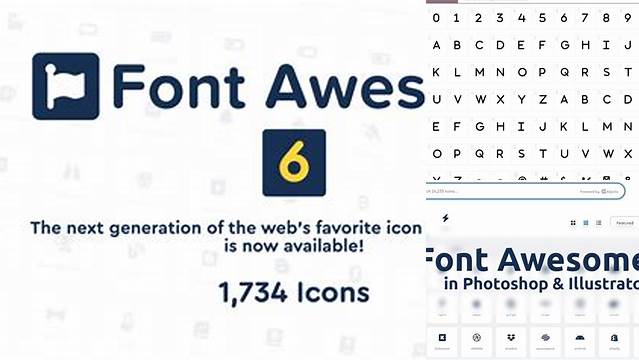
Welcome, guys! If you're looking to supercharge your web projects with awesome icons, you've landed in the right spot. We're diving deep into Font Awesome 6 free download, the latest and greatest from the world of icon libraries. Whether you're a seasoned developer or just starting out, understanding how to get and use these powerful tools is crucial for making your websites and apps look sharp and professional. So, let's get started on this journey to unlock the full potential of Font Awesome 6 for your design needs without spending a dime!
Understanding Font Awesome 6 Free Version
The free version of Font Awesome 6 is a powerhouse, offering a vast collection of icons that are perfect for a wide range of applications. It’s designed to be accessible to everyone, from individual bloggers to small businesses, ensuring that professional-looking design elements are within reach. When you opt for the free download, you're not getting a watered-down experience; you're getting a robust set of tools that can significantly enhance the user interface and overall aesthetic of your digital presence. The free tier includes hundreds of meticulously crafted icons, covering everything from social media platforms and navigation elements to essential UI components and business symbols. These icons are scalable, meaning they look crisp and clear on any screen size, from tiny mobile devices to large desktop monitors, thanks to their vector-based nature. The sheer variety available means you're likely to find the perfect icon for almost any purpose, reducing the need to source icons from multiple places or resort to custom designs. This accessibility and breadth of choice are what make the free version of Font Awesome 6 an invaluable asset for designers and developers alike. Furthermore, the icons are designed with a consistent style, ensuring that your website maintains a cohesive and professional look, even when using a diverse set of symbols. The ease of integration is another major plus; getting these icons into your project is straightforward, typically involving a simple link to the stylesheet or downloading the icon files directly. This means less time spent on setup and more time focusing on what truly matters: building a great user experience.
Why Font Awesome 6 is a Game Changer for Web Design
Font Awesome 6 is more than just an icon library; it's a fundamental tool that can dramatically elevate your web design game. For starters, the sheer volume of icons available in version 6 is astounding, offering designers and developers an unprecedented level of choice. This means fewer compromises and more opportunities to find that perfect visual element to communicate your message or guide your users. The consistency in design across the entire library is another huge win. Whether you're using a simple checkmark or a complex gear icon, they all share a common aesthetic language, which is vital for creating a cohesive and professional user interface. Imagine trying to build a site with icons from a dozen different sources – it would look messy, right? Font Awesome 6 solves that problem elegantly. Plus, they've introduced new styles and categories in version 6, catering to modern design trends and expanding the library's versatility even further. Think about accessibility: these icons are incredibly easy to implement, often requiring just a simple HTML tag. This ease of use translates to faster development times and a smoother workflow, which is music to any developer's ears. The scalability of these vector-based icons is also a major benefit. They look fantastic on high-resolution displays and scale up or down without losing quality, ensuring your site looks great on any device, from smartphones to large monitors. This attention to detail and commitment to providing a comprehensive, high-quality, and user-friendly icon solution is what truly makes Font Awesome 6 a game-changer in the web design landscape. It empowers you to create visually engaging and intuitive interfaces that captivate your audience.
Using Font Awesome Icons in Your HTML
Alright guys, you’ve got Font Awesome 6 linked up via CDN or downloaded, now let’s talk about actually using those snazzy icons in your HTML. It’s honestly one of the simplest parts of the process, which is great news for quick project development! The magic happens with simple HTML tags, usually either an <i> (italic) tag or sometimes a <span> tag. You'll give this tag a specific set of classes. The primary class you need is fa followed by the icon's style, like fa-solid for solid icons or fa-regular for regular/outline icons (both are available in the free version). Then, you add another class that defines the specific icon you want to display. For instance, if you want a search icon, you’d use fa-magnifying-glass. So, a typical icon tag would look like this: <i class="fa-solid fa-magnifying-glass"></i>. Boom! Search icon, ready to go. Need a star? Easy: <i class="fa-solid fa-star"></i>. Want to show a user profile? Just type <i class="fa-solid fa-user"></i>. The beauty here is that you can find the exact icon names you need on the official Font Awesome website. They have a fantastic search function where you can type in keywords like 'heart', 'cloud', or 'gear', and it will show you all the available icons and their corresponding class names. You can even add modifiers to change the size (like fa-lg, fa-2x, fa-3x), spin an icon (fa-spin), or flip it. So, you could have a large, spinning gear icon with <i class="fa-solid fa-gear fa-spin fa-lg"></i>. It's incredibly flexible and makes adding visual flair to your site a breeze.
Exploring the Icon Styles in Font Awesome 6 Free
Font Awesome 6 free doesn't just give you a bunch of icons; it offers them in different styles, which is super cool for adding variety and visual interest to your projects. The main styles you'll encounter in the free version are 'Solid' and 'Regular'. Solid icons, as the name suggests, are fully filled shapes – think of a heart icon that's completely solid red. You specify this style by using the fa-solid class in your HTML tag. Regular icons, on the other hand, typically represent the outline or lighter versions of the same glyphs. They often have a thinner line weight and provide a different aesthetic feel. You’d use the fa-regular class for these. Having both solid and regular styles for many common icons means you can choose the one that best fits the overall design language of your website or app. Maybe you want bold, impactful icons for primary actions, so you’d go solid. Then, for secondary information or decorative elements, you might opt for the regular, more subtle style. This distinction is important because it allows for a more nuanced design approach. For example, using solid icons for interactive elements like buttons and regular icons for less prominent labels or status indicators can help guide the user's eye and improve usability. The free version provides a generous selection within these styles, ensuring you have plenty of options to play with. It’s all about giving you the tools to make your interface not just functional but also visually appealing and consistent. Remember to check the Font Awesome website for the specific icon names and their available styles, as not every single icon might have both solid and regular variants.
Font Awesome 6 Solid Icons: Bold and Clear
The 'Solid' style in Font Awesome 6 is all about making a statement. These icons are fully filled, giving them a bold, robust appearance that stands out. When you use fa-solid in your icon classes, you're opting for maximum visual impact. Think of icons like a thick heart, a solid checkmark, or a completely filled star. These are fantastic for primary calls to action, important navigational elements, or anywhere you need an icon to grab attention immediately. Because they are so distinct, solid icons are generally easier to recognize at smaller sizes or in busy layouts, making them great for mobile interfaces or dashboards where clarity is key. They convey a sense of strength and presence. For instance, if you’re building a button that says “Add to Cart,” using a solid shopping cart icon (<i class="fa-solid fa-cart-shopping"></i>) provides a clear, unambiguous visual cue. Similarly, a solid 'thumbs up' (<i class="fa-solid fa-thumbs-up"></i>) can feel more emphatic than its outline counterpart. Developers love the fa-solid set because it's often the default choice for core functionality and essential symbols. They are dependable, highly visible, and contribute significantly to the overall usability of a web application by clearly representing actions or concepts. The extensive collection of solid icons in Font Awesome 6 ensures that you have a strong, clear visual option for almost any need, making your interface both intuitive and aesthetically pleasing. They are a go-to for reliability and immediate recognition.
Font Awesome 6 Regular Icons: Subtle and Elegant
If 'Solid' icons are about making a bold statement, then 'Regular' icons in Font Awesome 6 are about understated elegance and subtle clarity. These icons typically feature the outline or the lighter, less filled version of a symbol. You activate them using the fa-regular class in your HTML. Imagine the difference between a solid heart and just the outline of a heart – the outline is generally perceived as softer, less intrusive. Regular icons are perfect for secondary information, status indicators, less critical actions, or when you want a cleaner, more minimalist look. For example, on a user profile page, you might use regular icons for things like a user's location (<i class="fa-regular fa-map-pin"></i>) or their website (<i class="fa-regular fa-globe"></i>), while perhaps using a solid icon for the 'Edit Profile' button. This contrast helps in visually prioritizing elements on the page. They can also be incredibly useful when you need to display a lot of icons without overwhelming the user, such as in a settings menu or a list of features. The lighter appearance of regular icons makes them blend more seamlessly into the design, providing functionality without demanding too much attention. They contribute to a sophisticated and modern aesthetic. So, when you're aiming for a design that feels clean, refined, and user-friendly, definitely explore the fa-regular options within the Font Awesome 6 free download. They offer a fantastic way to add detail and function subtly.
Finding Specific Icons in Font Awesome 6 Free
Navigating the vast sea of icons in Font Awesome 6 free and finding that exact one you need can feel like a treasure hunt, but thankfully, the official Font Awesome website makes it super easy. The best tool in your arsenal is their comprehensive search functionality. Once you're on their website (either the documentation or the icons page), you'll see a prominent search bar. Simply type in keywords related to the icon you're looking for. For example, if you need a bell icon for notifications, you might type 'bell', 'notification', or 'alert'. The search will then present you with all matching icons. It’s incredibly intuitive! You can usually filter the results too, for instance, by style (Solid, Regular) or by category (like 'Web Application', 'Hand Sings', 'Transportation'). This filtering is a lifesaver when you have a general idea but need to narrow down the options. Each icon listed will clearly show its name (e.g., bell) and the class you need to use in your HTML (e.g., fa-solid fa-bell). Clicking on an icon often brings up more details, including different styles it might be available in and usage examples. So, if you’re looking for a specific symbol, don’t just guess – head straight to the Font Awesome website. Spend a minute typing in descriptive words, and you'll likely find your perfect icon in no time. It’s the most efficient way to discover and utilize the extensive library available in the free version. This makes integration into your projects a smooth and hassle-free process.
Font Awesome 6 Icon Categories Explained
To help manage the sheer volume of icons available in Font Awesome 6, they've helpfully organized them into various categories. This makes finding what you need much more efficient, guys! Instead of just browsing endlessly, you can jump directly to a section that is likely to contain the icon you're looking for. Some common categories you’ll find include 'Accessibility', which features icons related to users with disabilities; 'Brand Icons', although many of these are premium, some foundational ones might be free; 'Business', with symbols for commerce and finance; 'Communication', including icons for mail, chat, and phone; 'Computers', featuring hardware and software symbols; 'Currency', for money-related icons; 'Forms', useful for input fields and controls; 'Hand Sings', a popular category with various gestures; 'Hardware', like printers and monitors; 'Medical', for healthcare symbols; 'Objects', a general category for everyday items; 'Payment', dedicated to transaction symbols; 'Shipping', related to logistics; 'Spinner icons', animated loading indicators; 'Text editor', for formatting tools; 'Transportation', with vehicle and travel icons; 'User', for profile and account symbols; and 'Video', for media playback. Within the free version, you'll have access to a significant number of icons across many of these categories. When you use the search function on the Font Awesome website, you can often filter by these categories. This structured approach is brilliant for quickly locating icons relevant to specific functionalities within your website or application, ensuring a consistent and thematic visual language. It saves you time and helps you discover icons you might not have thought of otherwise.
Font Awesome 6 vs. Other Icon Libraries
When you're building a website or app, choosing the right icon library is a big decision, and Font Awesome 6 free download definitely holds its own against the competition. Let's break down why it's such a popular choice. Firstly, its ease of use is a massive advantage. The CDN integration and simple HTML markup mean you can get icons up and running in minutes, which is way faster than some other libraries that might require more complex setup or build processes. Secondly, the sheer breadth of the free offering is remarkable. Many other icon sets offer a very limited free tier, pushing you towards their premium versions for basic functionality. Font Awesome 6, however, provides hundreds of high-quality, versatile icons for free, covering a huge range of needs. The consistency in design across the library is another key differentiator. Unlike mixing and matching from different sources, Font Awesome provides a unified aesthetic, making your design look professional and cohesive. While some other libraries might boast more niche or specialized icons, Font Awesome 6 strikes an excellent balance between variety, quality, and accessibility. For most web projects, especially those on a budget, the free version of Font Awesome 6 offers an unbeatable combination of features, usability, and design polish. It’s a robust, reliable, and readily available solution.
Advantages of Font Awesome 6 Free
Okay, let's talk about why the Font Awesome 6 free version is such a killer deal for so many projects. First off, cost – it’s free! This is huge for developers working on personal projects, startups, or clients with tight budgets. You get access to a massive library of icons without spending a single cent. Secondly, the ease of integration is a major win. As we’ve covered, using the CDN is as simple as adding a line of code to your HTML. This means less setup time and a faster development cycle. No need to fiddle with complex installations or server configurations for the basic setup. Thirdly, the consistency and quality of the icons are top-notch. Font Awesome has a distinct, clean style that looks professional across the board. Having hundreds of icons that all feel like they belong together makes your website or app look polished and well-thought-out. Fourthly, the scalability is crucial. These are vector icons, so they look sharp and crisp on any screen resolution, from the smallest smartphone to the largest 4K monitor. This is essential for responsive design. Finally, the huge community support means that if you ever run into an issue or need inspiration, there are countless tutorials, forums, and examples available online. This extensive support network makes troubleshooting much easier. These advantages combined make Font Awesome 6 free a compelling choice for a vast majority of web development needs.
SVG vs. Font Icons: Font Awesome 6 Approach
Font Awesome 6, especially in its later versions, has embraced both font icons and SVG icons, offering flexibility for developers. Historically, Font Awesome was primarily a font icon library. This means icons were delivered as a font file (like .woff or .ttf). When you used an icon class in HTML, it essentially instructed the browser to render a specific character from that font file as an icon. This method is lightweight and easy to implement via CSS. However, font icons can sometimes have limitations, like issues with scaling on certain high-resolution screens (though less so with modern versions) or difficulties with color manipulation and animation compared to SVGs. Recognizing these nuances, Font Awesome has increasingly incorporated SVG icon support. This means you can often use icons as inline SVG code directly in your HTML, or through their SVG-enabled CDN. SVG (Scalable Vector Graphics) icons offer superior scalability without any quality loss, better control over individual paths for advanced styling and animation, and often better performance, especially when dealing with complex icons. The free version of Font Awesome 6 allows you to use the icons via the traditional font method, and also offers SVG options, providing you with the best of both worlds. Whether you prefer the simplicity of font icons or the advanced capabilities of SVGs, Font Awesome 6 has got you covered, allowing you to choose the approach that best suits your project's technical requirements and your design preferences.
Font Awesome 6 Performance Considerations
When you're implementing Font Awesome 6, especially the free version, thinking about performance is always a good idea, guys. The primary way most people use the free version is via CDN. This means your site relies on an external server to deliver the icon files. While CDNs are generally very fast and distributed globally, meaning they load quickly from servers close to your users, there's still a slight overhead. Each time a page loads, the browser needs to download the Font Awesome CSS file and the font files themselves. For the standard CDN implementation, this usually isn't a big deal, as the files are highly optimized and often cached by the browser after the first visit. However, if you're loading a lot of pages with many icons, or if you're on a very restrictive hosting plan, you might consider alternatives. One alternative is to download the free kit and host the files locally on your own server. This gives you more control but requires you to manage updates yourself. Another performance tip, especially if you're using many icons, is to consider using the SVG option if available and appropriate for your needs. Inline SVGs can sometimes be rendered more efficiently by the browser than font icons, especially if you need complex styling or animations. However, for the vast majority of use cases, the standard CDN implementation of Font Awesome 6 free is highly performant and won't noticeably impact your website's loading speed. Just be mindful of how many external resources you're loading overall!
Licensing and Usage Rights for Free Icons
It's super important, guys, to understand the licensing when you download and use Font Awesome 6 free icons. While it's free, it doesn't mean there are zero rules. Font Awesome's free icons fall under a specific license – usually, it's the SIL Open Font License (OFL). What this generally means is that you're free to use, modify, and distribute the icons for your projects, whether they're commercial or personal, as long as you adhere to the license terms. Key points usually include not trying to resell the icon font itself, ensuring you don't infringe on any brand trademarks if you're using brand-related icons (though be cautious with these in general), and properly attributing Font Awesome if the license requires it (often, for CDN use, this is implicitly handled, but check the specifics). For the free version, the core idea is broad usability. You can use them on websites, in apps, in print materials – pretty much anywhere. The main restriction is typically around redistributing the font files themselves as a standalone product. Always, always check the official Font Awesome website for the most current and detailed licensing information for version 6. Understanding these terms ensures you're using the icons ethically and legally, avoiding any potential headaches down the line. It's about respecting the creators' work while leveraging their awesome contribution.
Advanced Techniques with Font Awesome 6 Free
Once you've got the basics down – linking the CDN, adding icons with HTML – you might wonder,